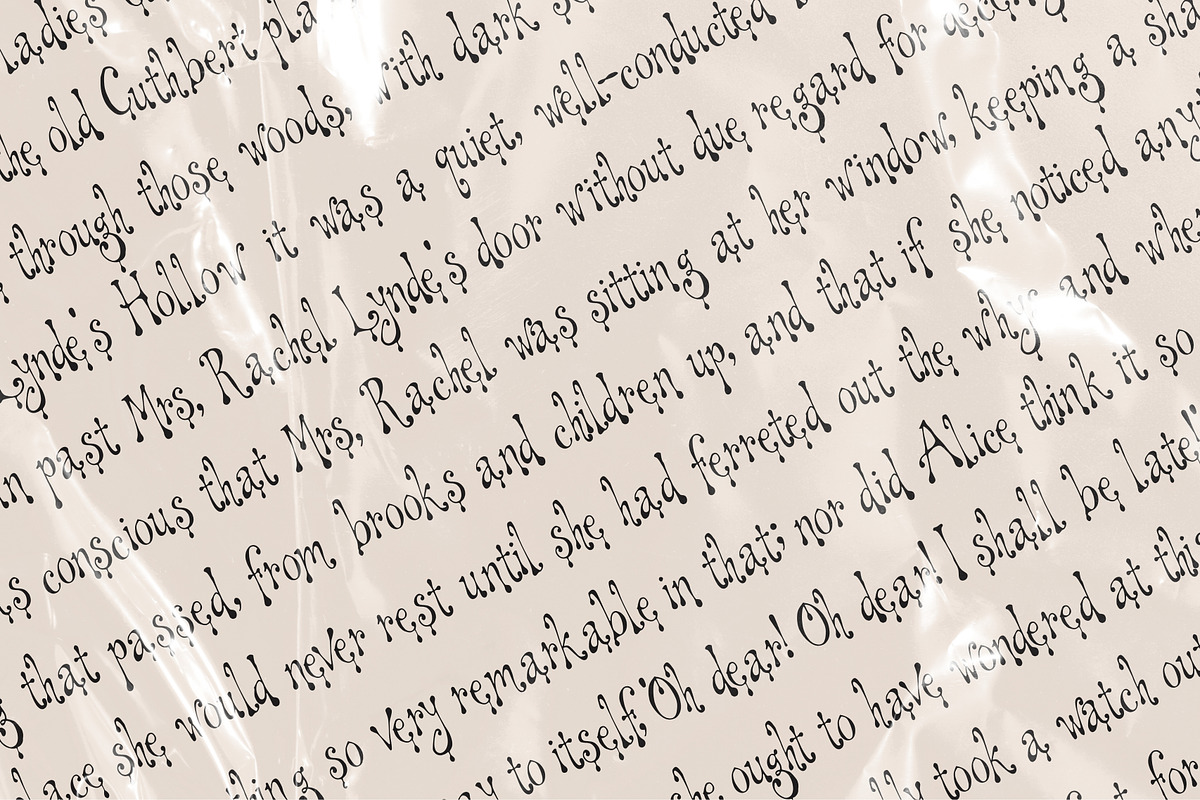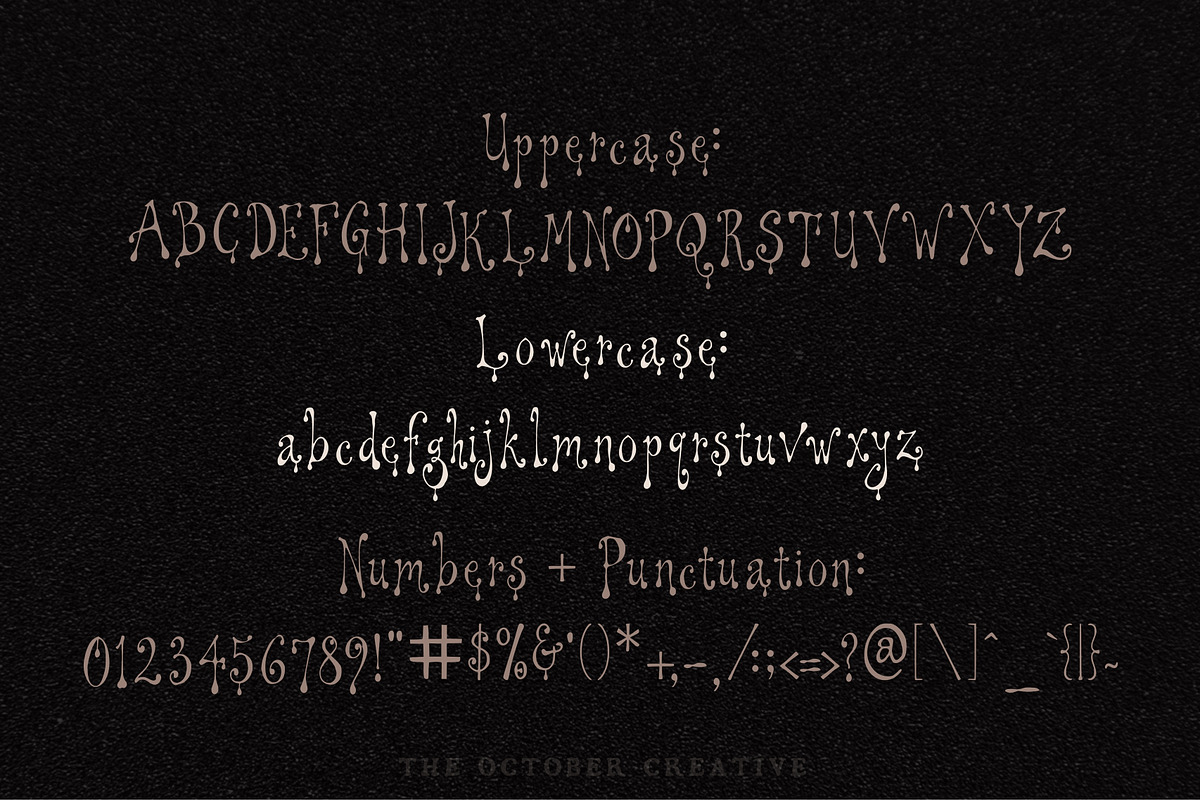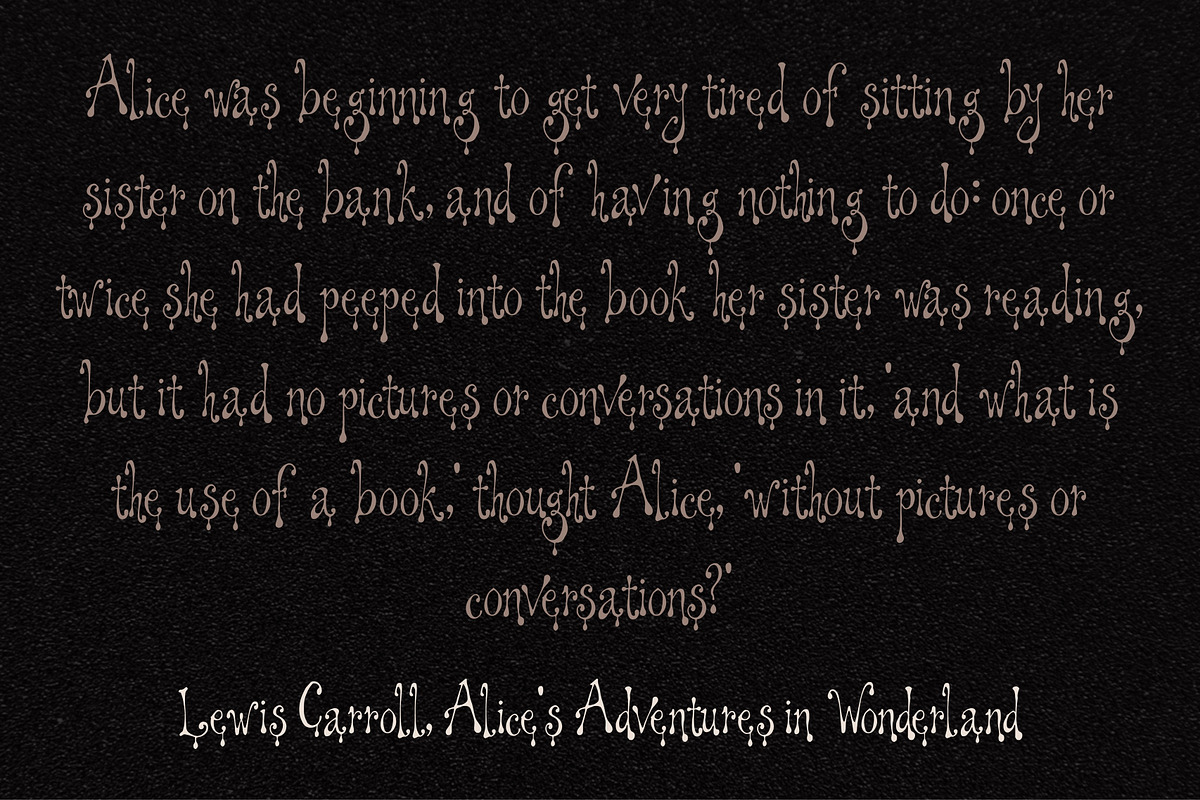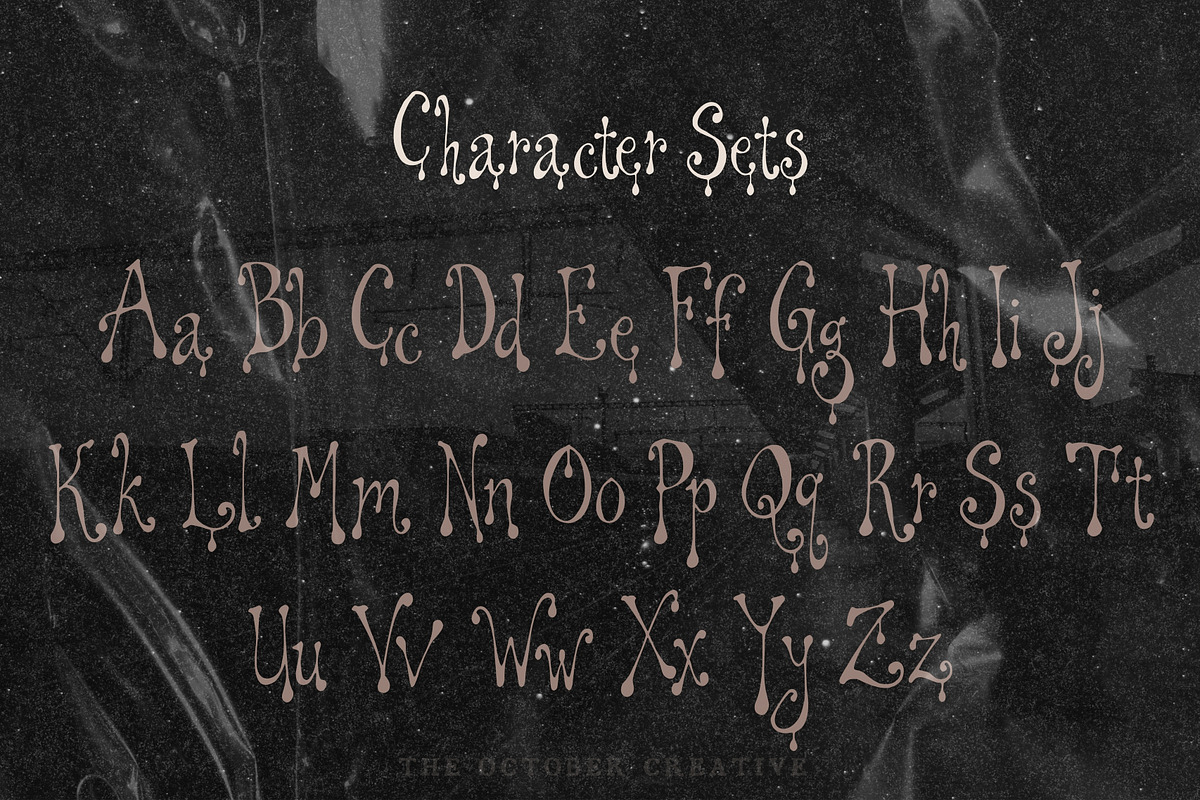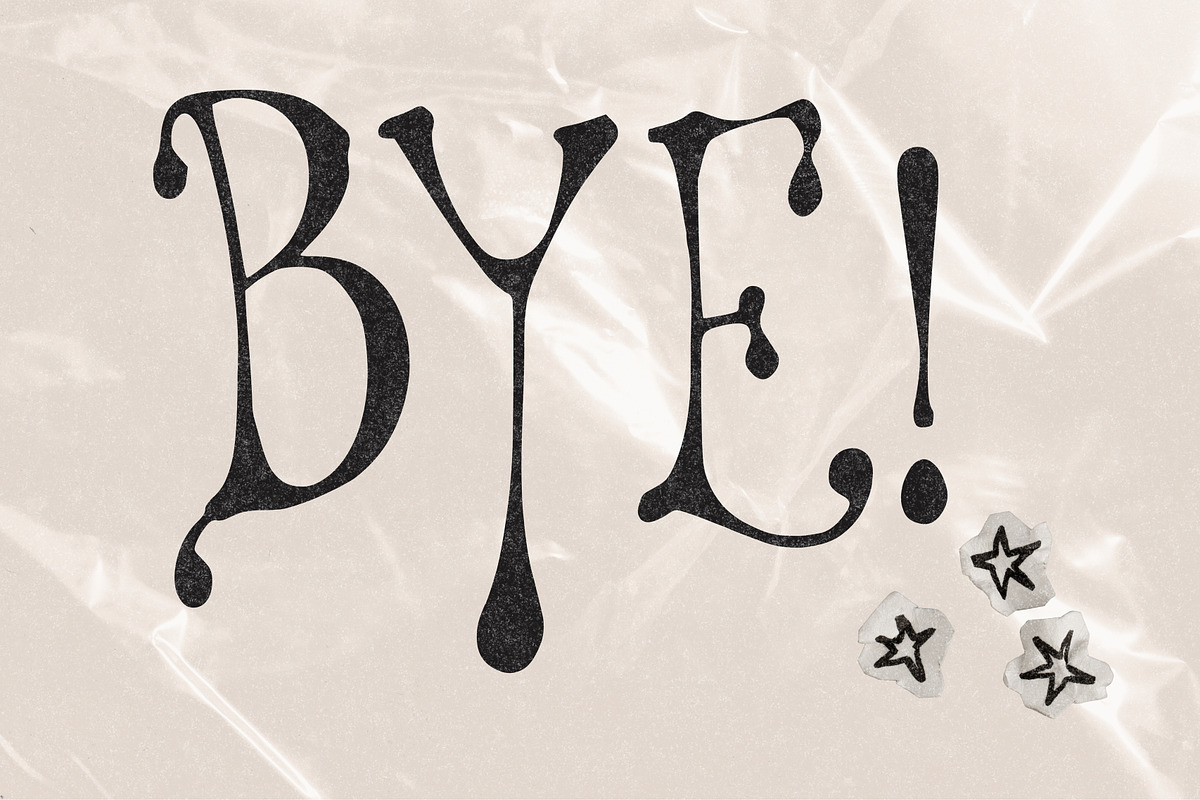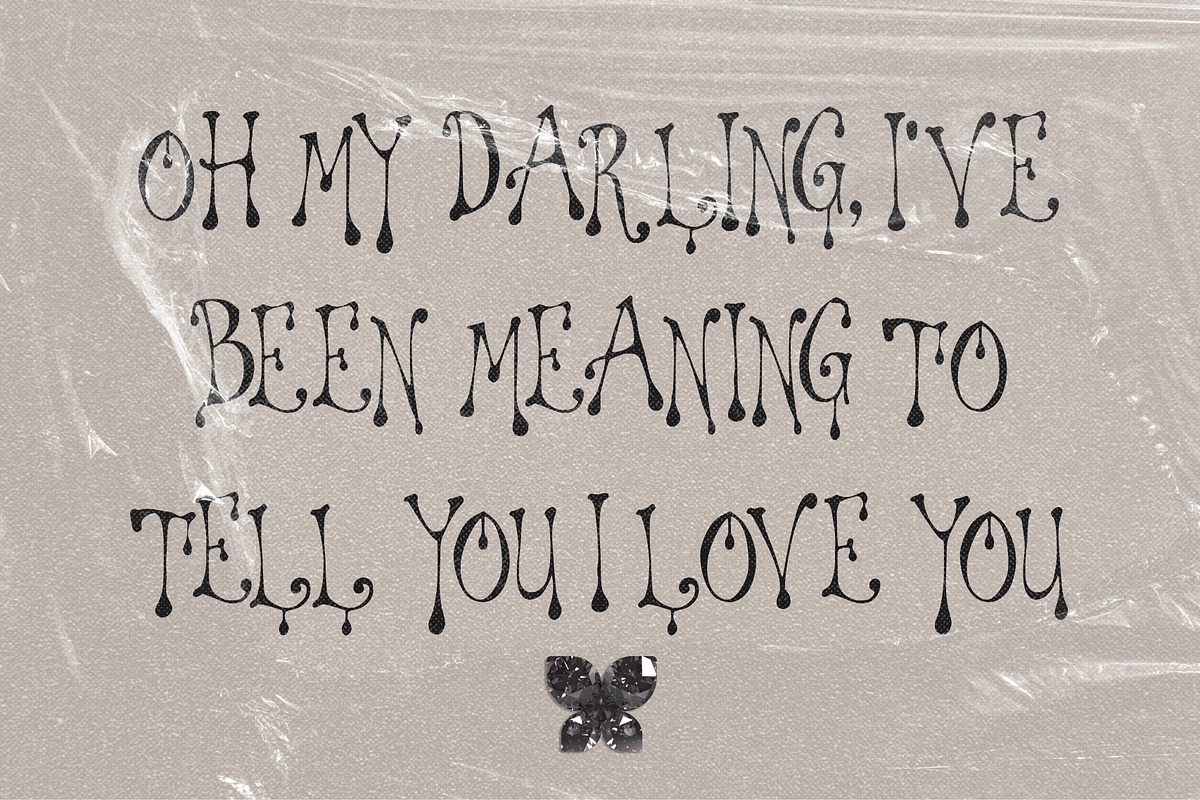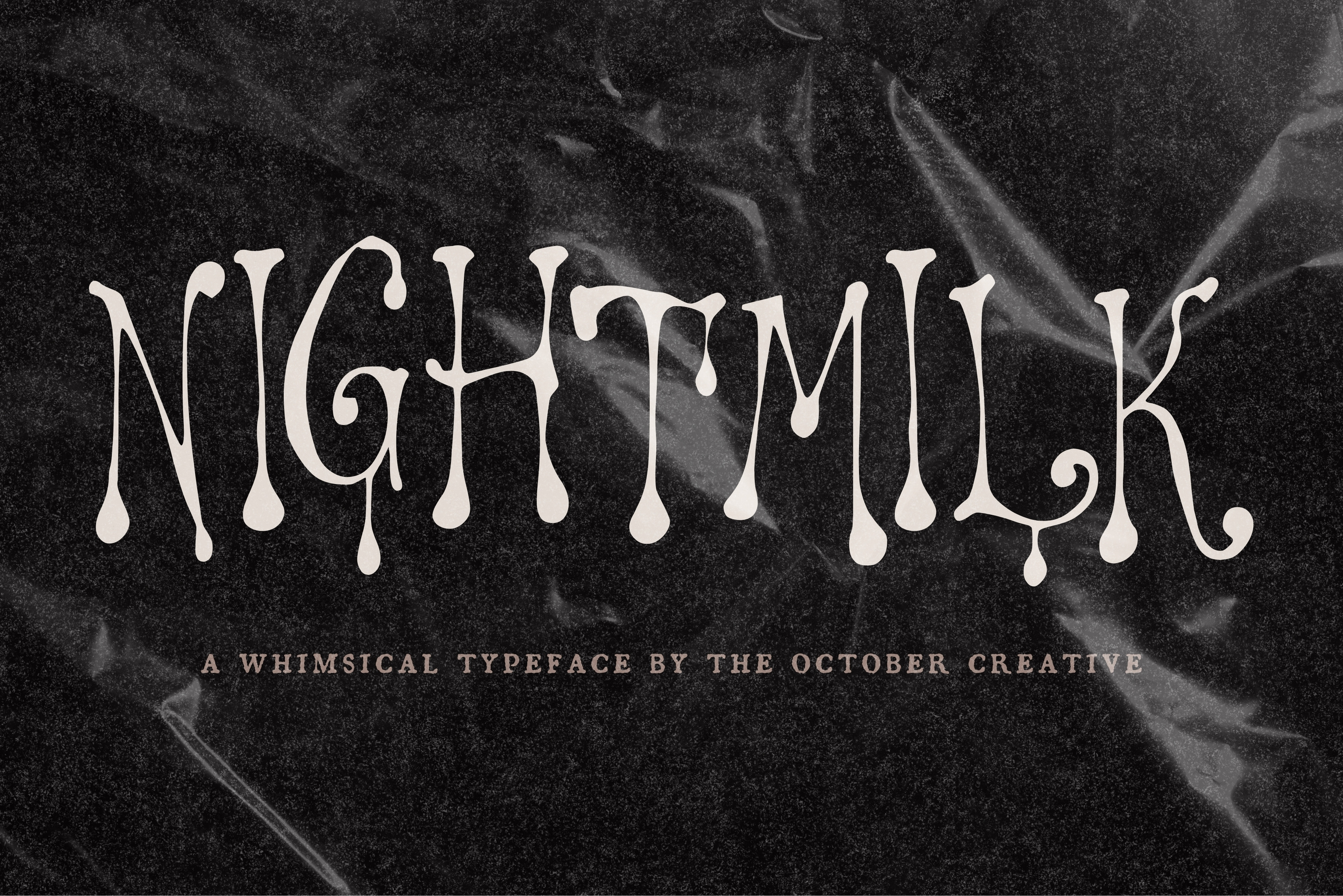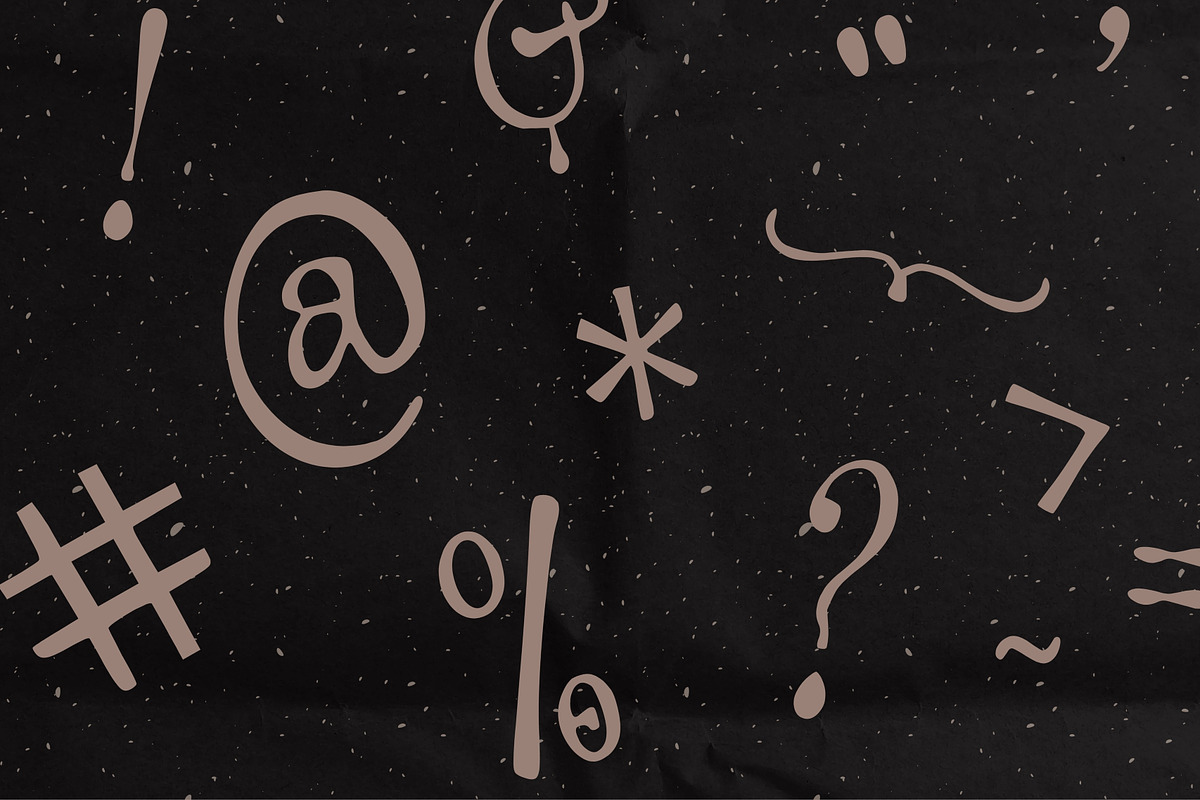
Nightmilk Melting Display Font
Nightmilk is a melting display font whose letters sag and run downward, like something left out too long. It fits celestial prints, tarot packaging, moon phase art, and night sky stationery.
CHARACTER SET
Uppercase A to Z, lowercase a to z, numerals 0 to 9, and every standard keyboard punctuation mark and symbol: ! " # $ % & ' ( ) * + , - . / : ; < = > ? @ [ \ ] ^ _ ` { | } \~
Curly quotes and apostrophes (‘ ’ “ ”), en and em dashes, an ellipsis, and a bullet.
Accented letters: À Á Â Ã Ä Å Ç È É Ê Ë Ì Í Î Ï Ñ Ò Ó Ô Õ Ö Ù Ú Û Ü and their lowercase forms.
LANGUAGES SUPPORTED
English, plus the accented vowels, Ñ, and Ç used in names and everyday words in Spanish, French, Italian, Portuguese, German, and Dutch. Not included: ß, Æ, Ø, Œ, and the upside-down ¿ and ¡.